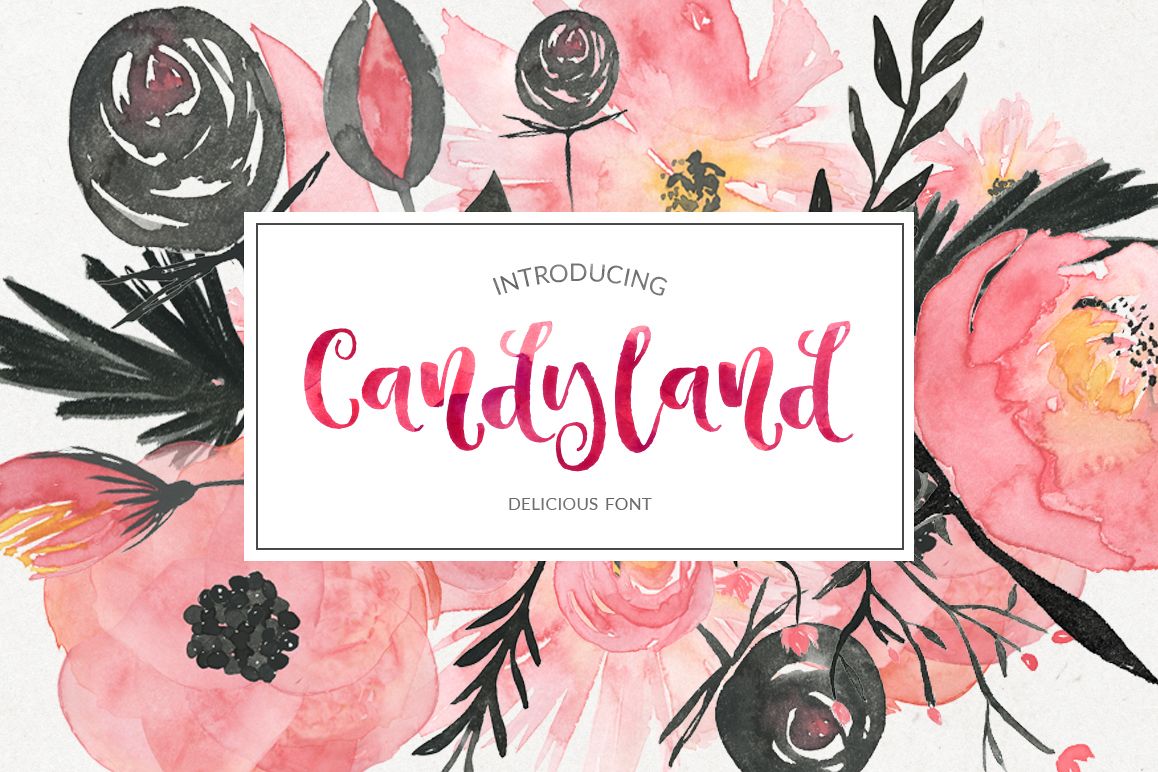
Candyland - delicious font
Candyland-Regular
Candyland is very feminine, elegant, yet playful font with tons of characters to choose from Candyland comes with full set of lowercase alternates, as well as initial and terminal forms, and the great news is: all of those are PUA encoded! That means that you will be able to access all characters from any application.
Main Features:
• standart lowercase and uppercase characters (as well as numbers and punctuation)
• full set of lowercase alternates
• initial & terminal forms of all lowercase letters
• language support for most of european languages
• Wedding cards & save the dates
• Feminine logos and branding
• Recipes & cooking books
• Book titles (especially romantic ones :)